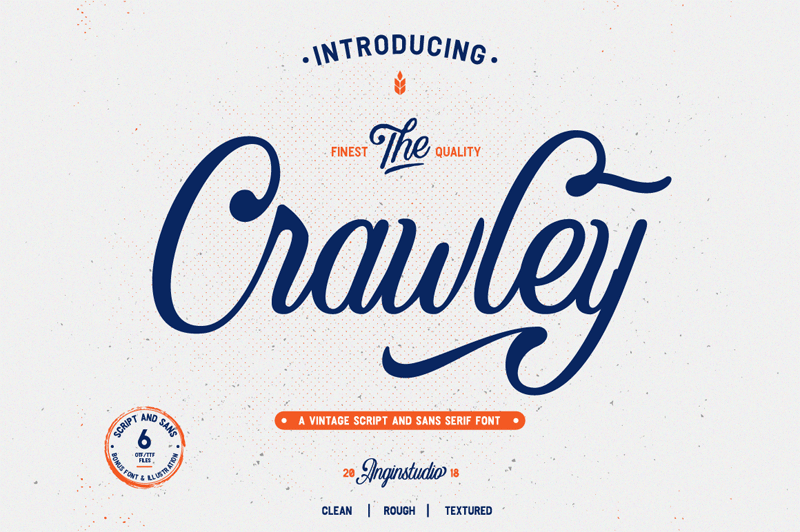
Preview and download Crawley Font. Created by David Novrian in Script Various styles with Free for personal use license.
Now let us introduce you our new font called "The Crawley" Crawley is a vintage script based on our hand lettering, created carefully to make a good flow and make you feel something, this font inspired by the old american packaging, signs, and labels. The Crawley great for Logotype, Branding Design, Vintage Logo, Book Cover, Quote, Apparel, and ETC NOTE: This demo font is for PERSONAL USE ONLY! This demo version available: - Uppercase - Lowercase - Number for a cup of coffee: https://www.paypal.me/DebbyAristiya Link to purchase full version and commercial license: https://crmrkt.com/XbpE0y full version feature: - Ligature - Discretionary Ligature - Stylistic Alternate visit our store: https://creativemarket.com/angin.s dont forget to appreciate the project through on behance & instagram: https://www.behance.net/davidnovrian7 https://www.behance.net/ahmadaswin0760 https://www.instagram.com/angin.studio/ thank you for appreciate |